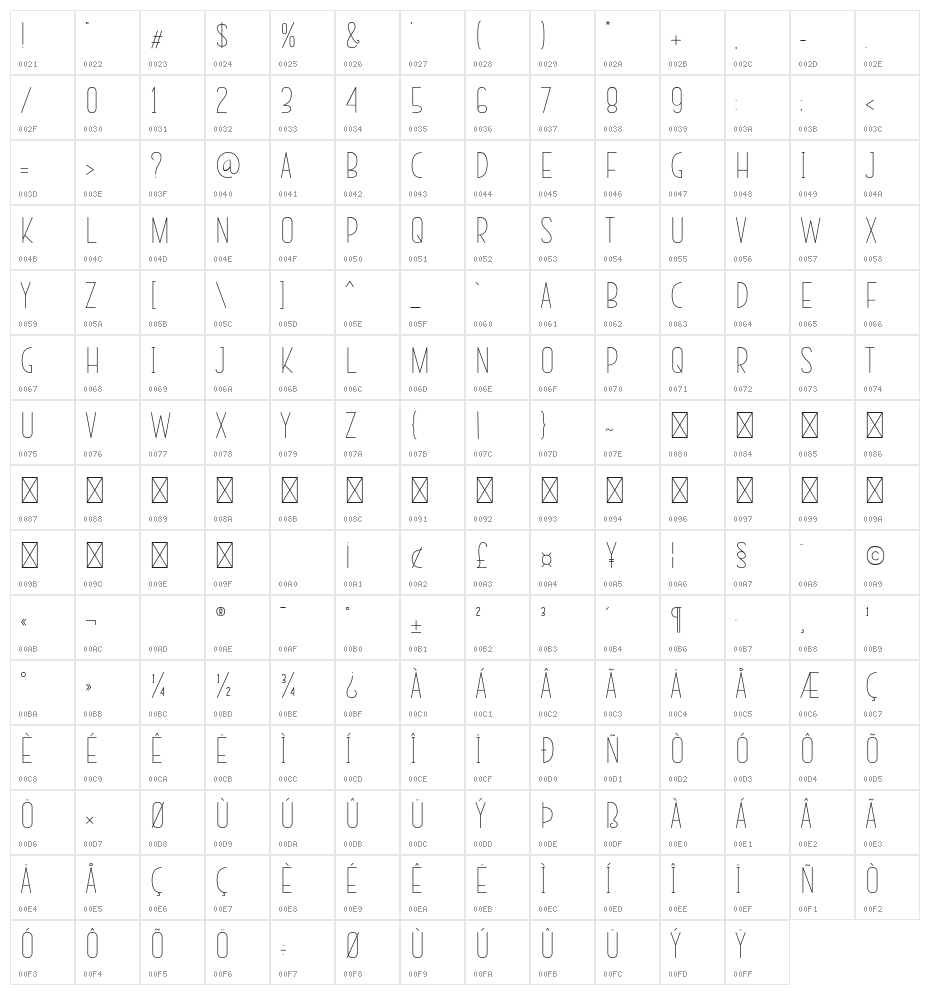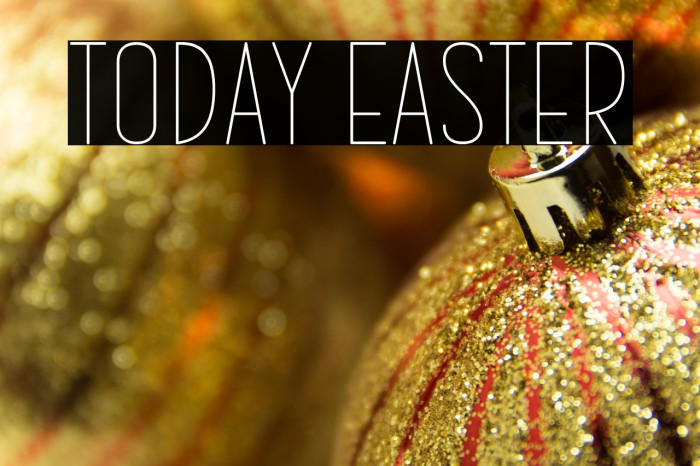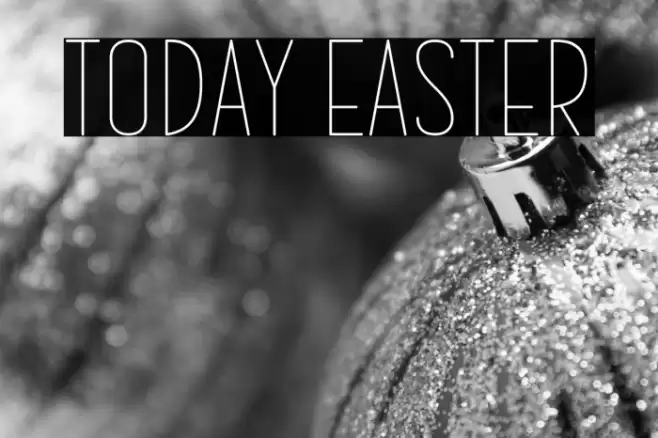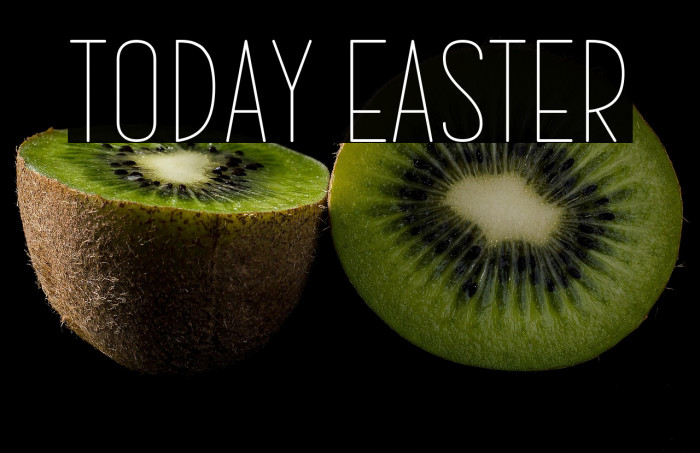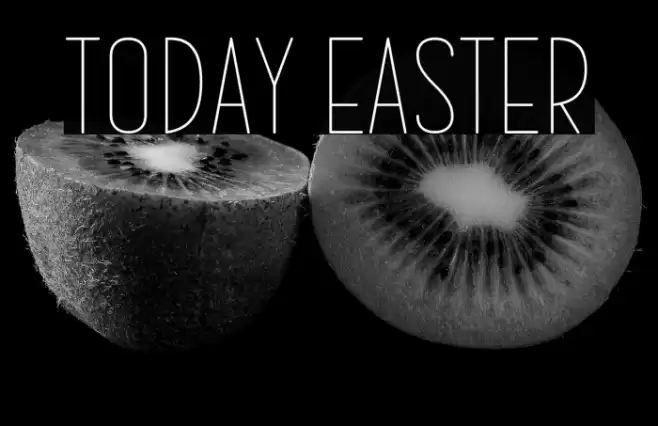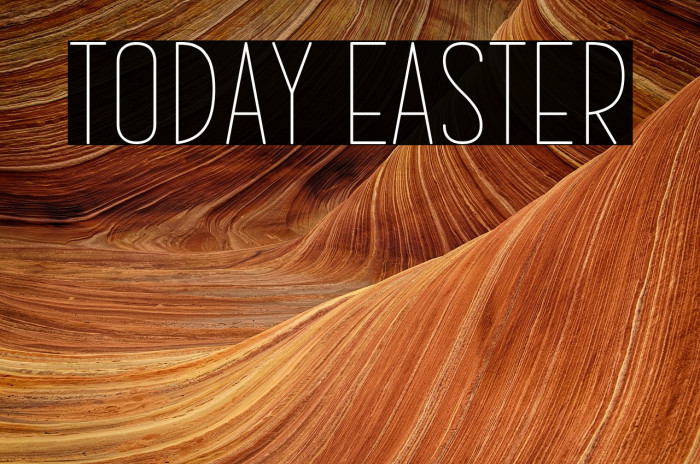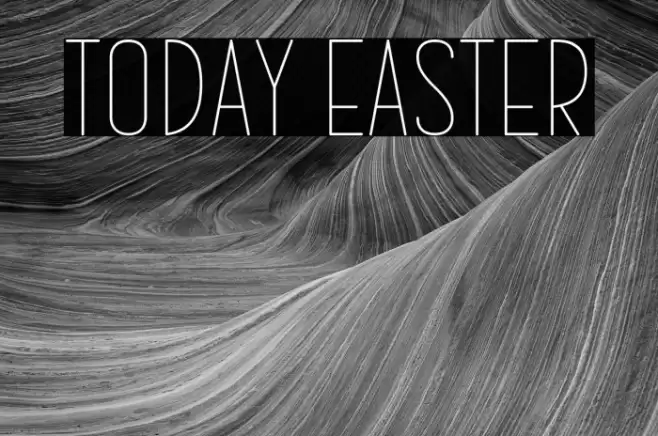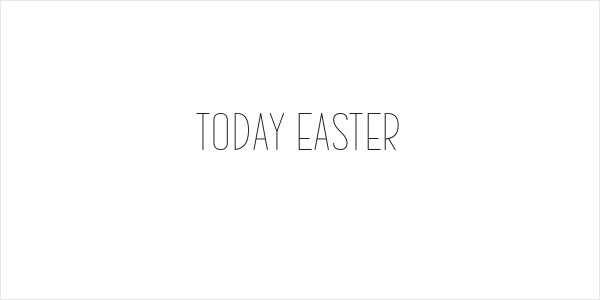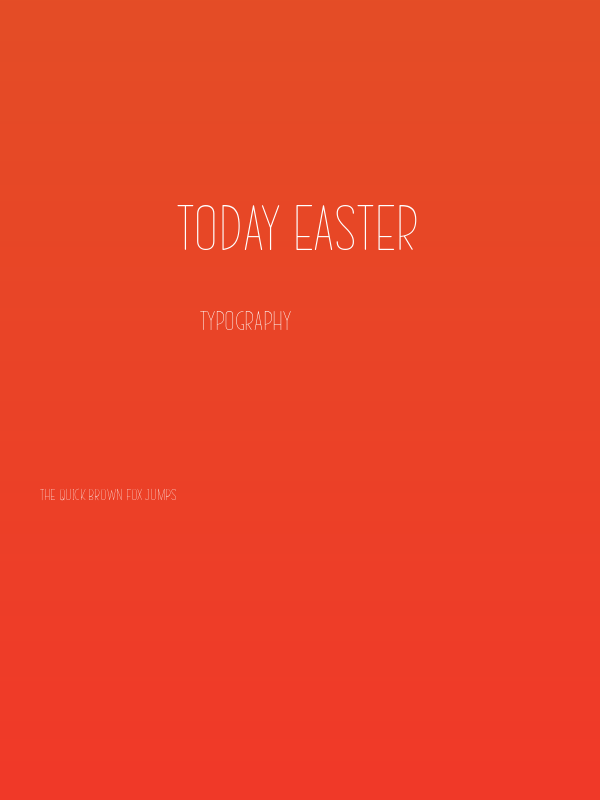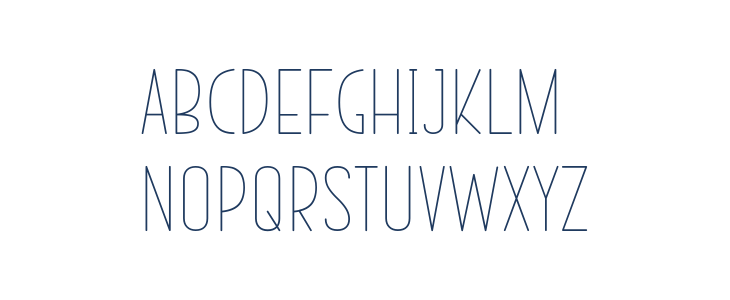
Today Easter Font
Today Easter Description
This font features a clean and modern design with tall, narrow characters that convey a sense of elegance and sophistication. The letters are evenly spaced, providing a balanced and harmonious appearance. The strokes are consistent in width, offering a uniform look that enhances readability. The font includes both uppercase and lowercase letters, numerals, and a variety of special characters, making it versatile for different design needs. Its minimalist style is suitable for contemporary projects, where clarity and simplicity are desired.
| Proposed Projects | Ideal for branding, editorial design, web design, and minimalist posters. |